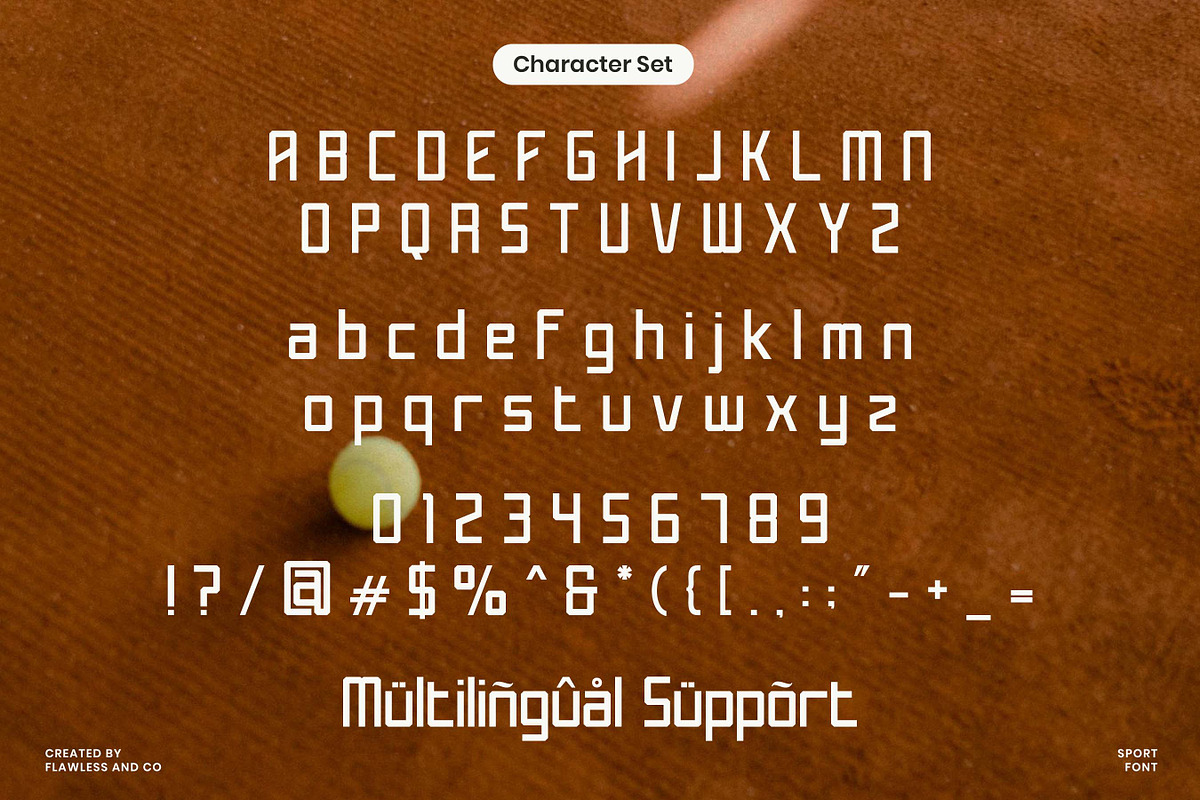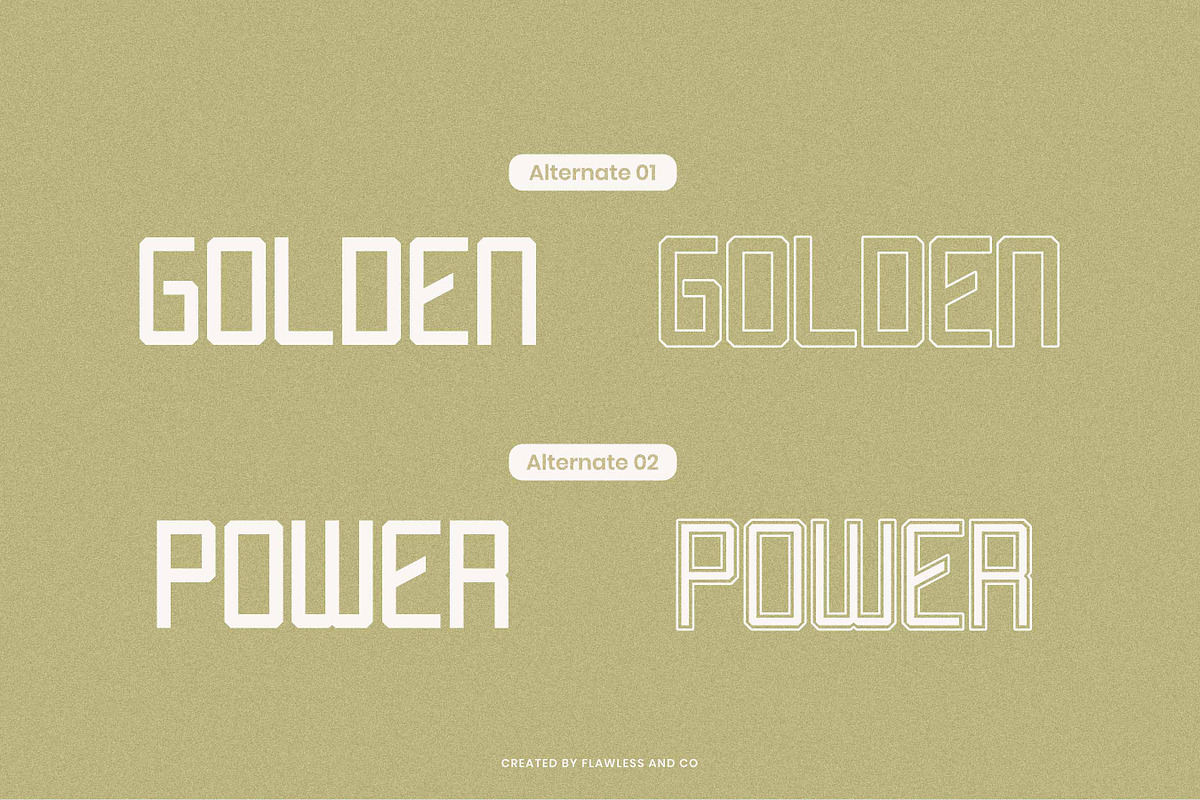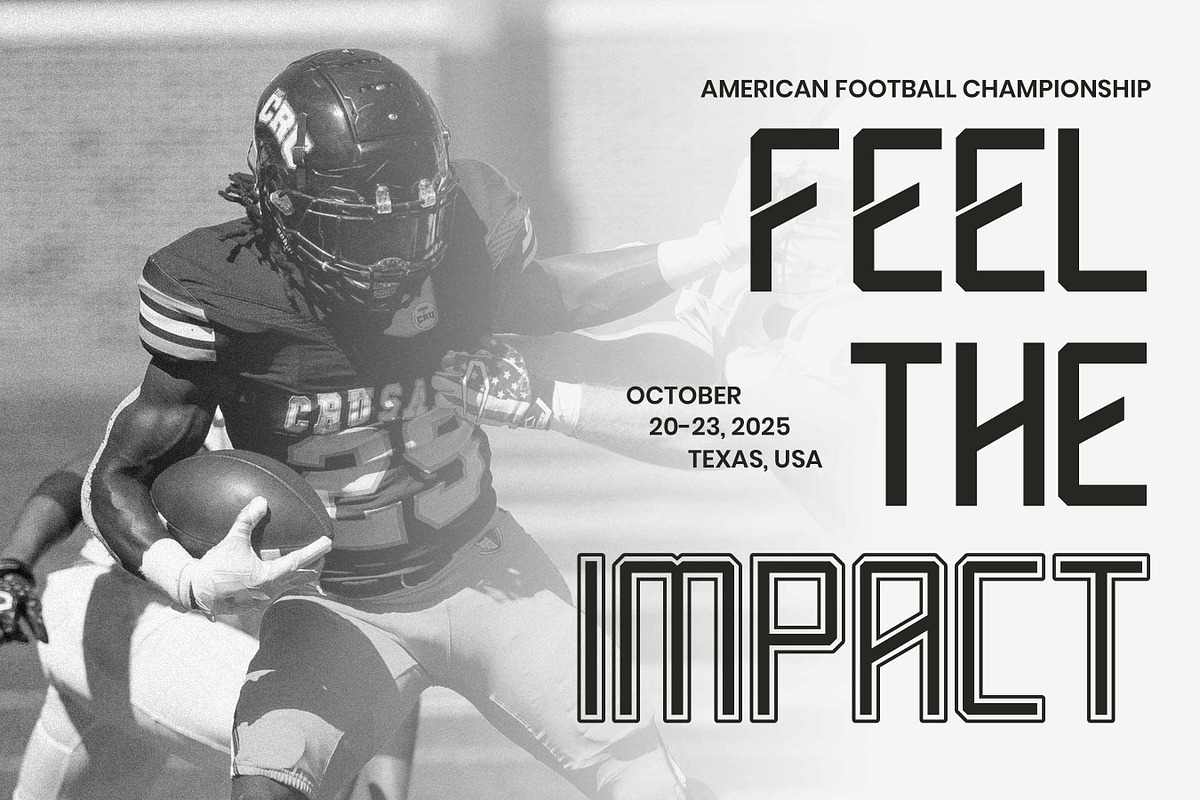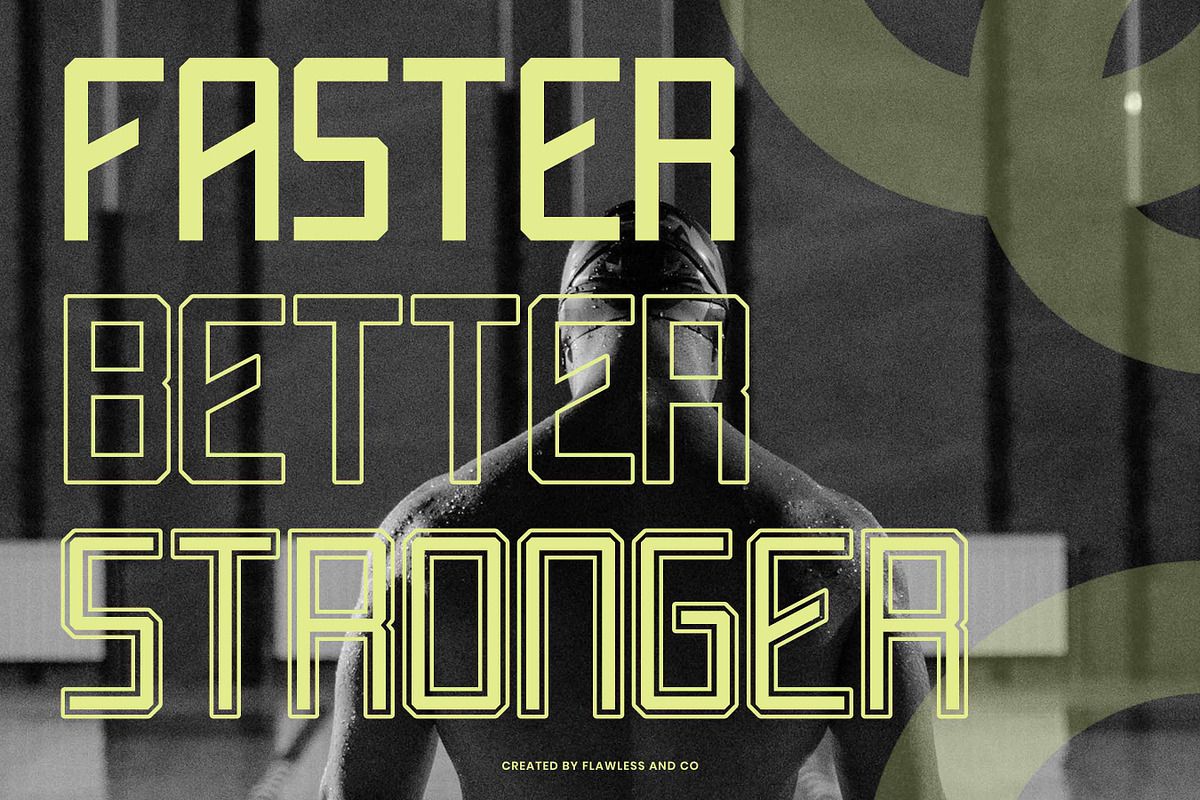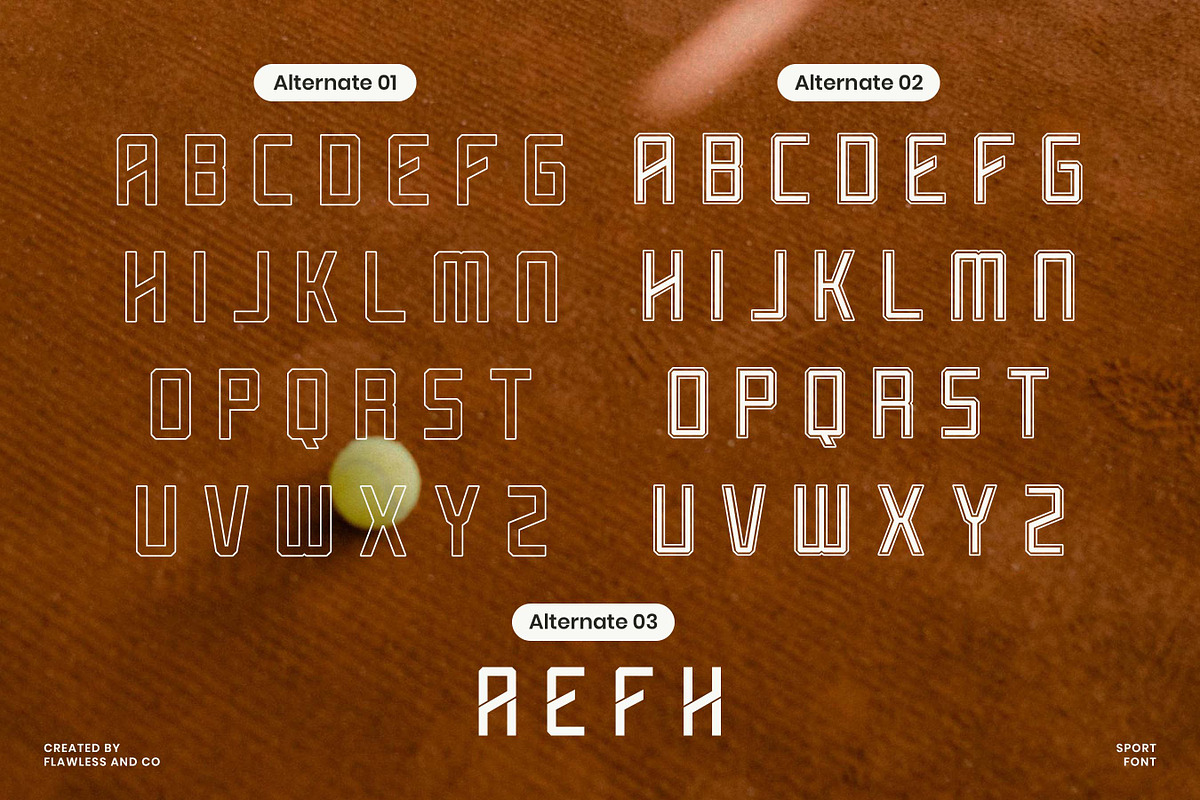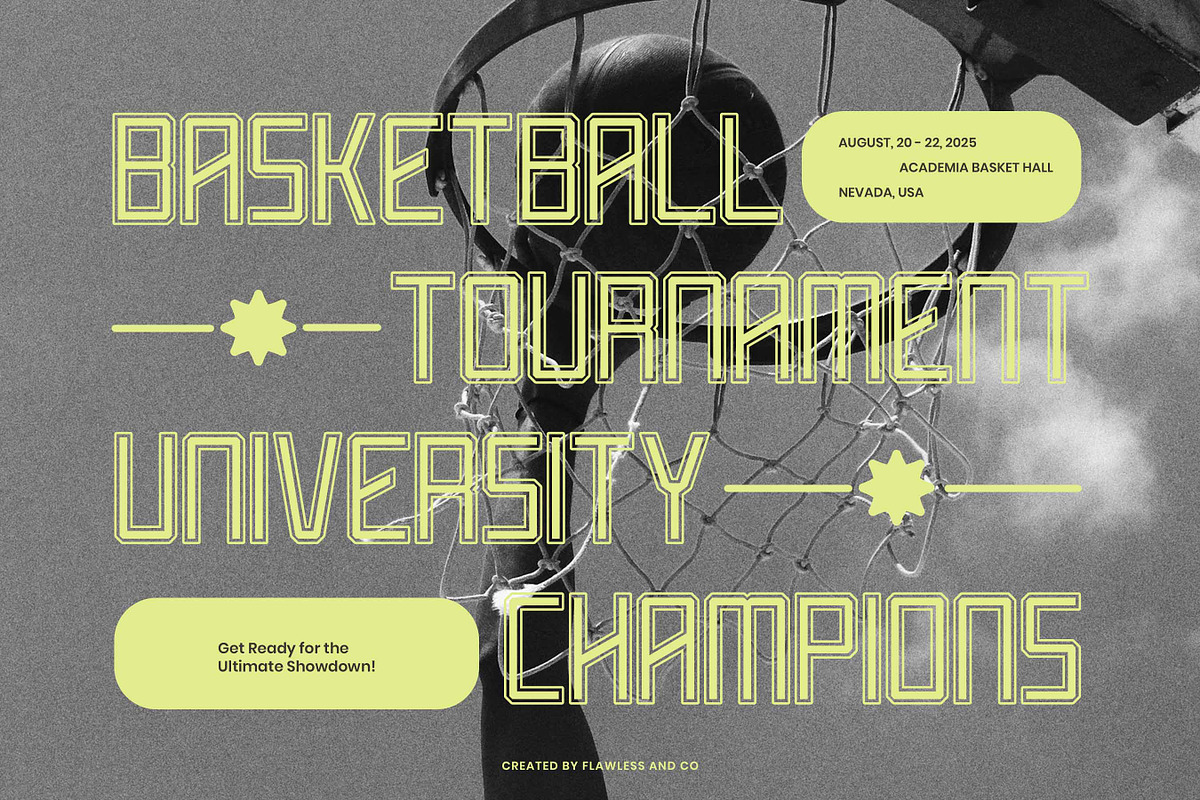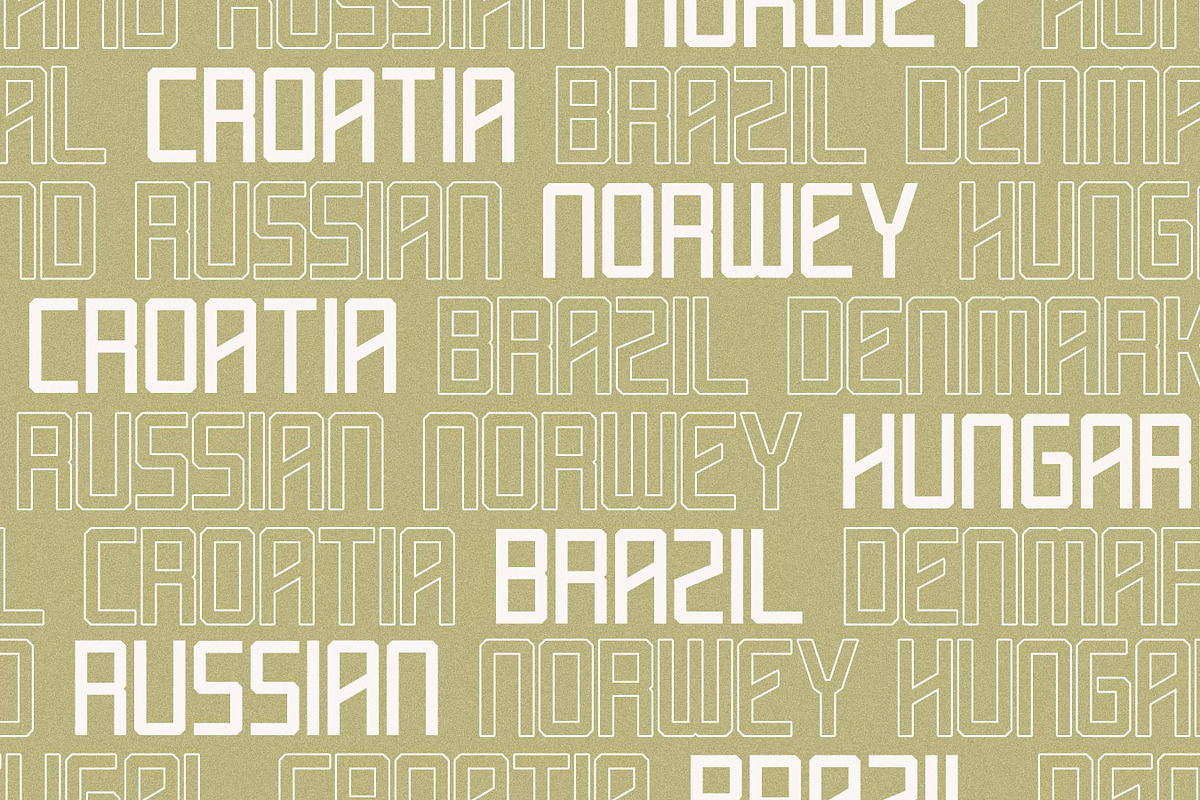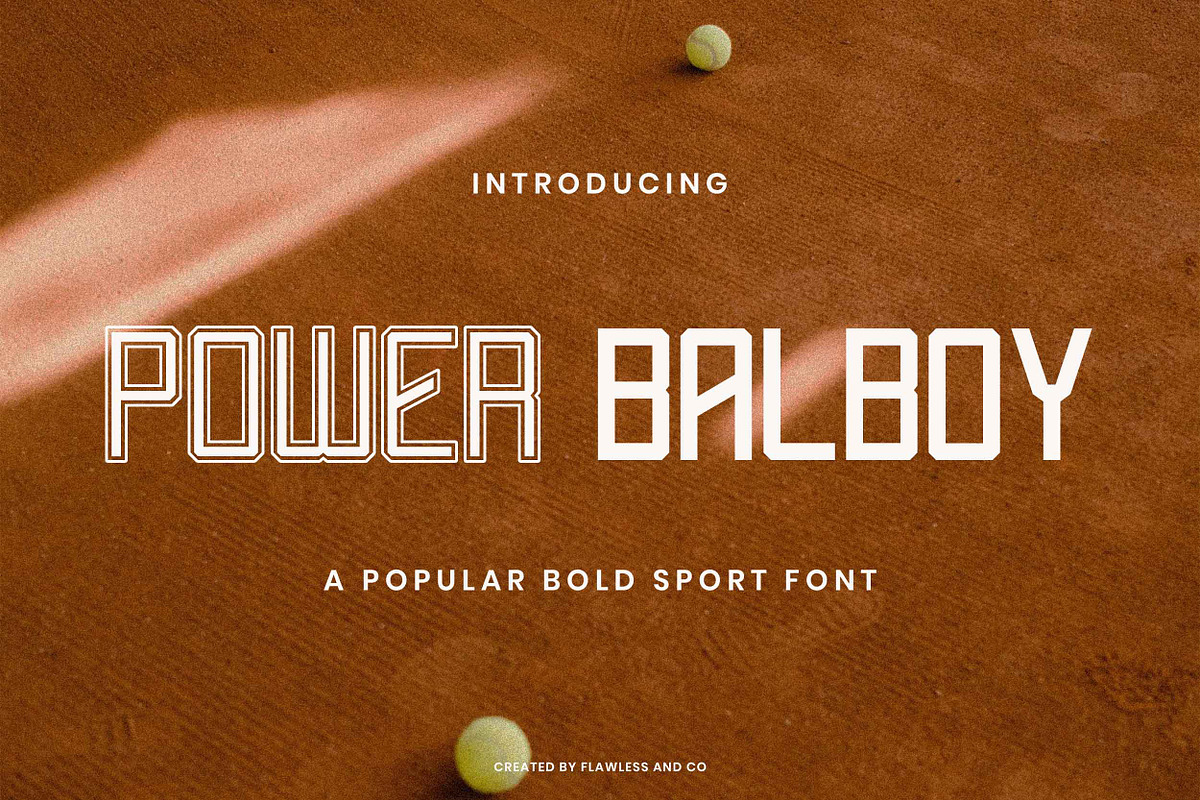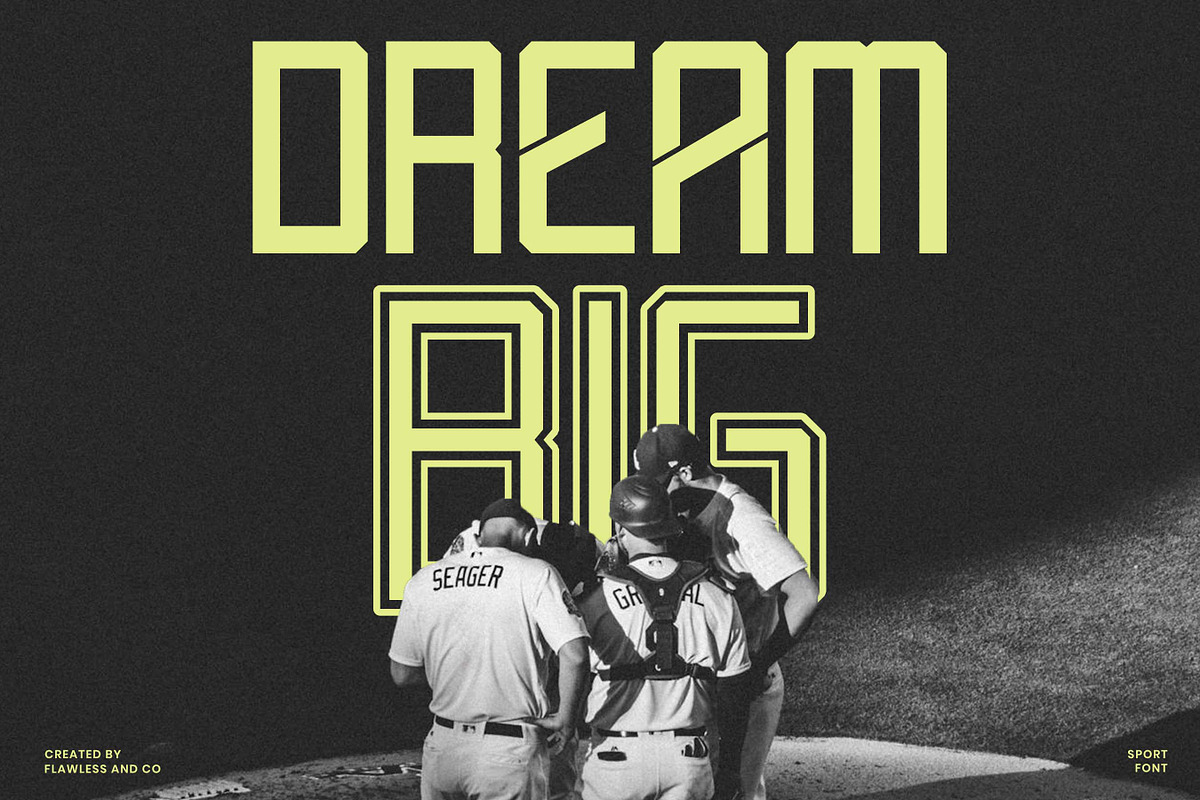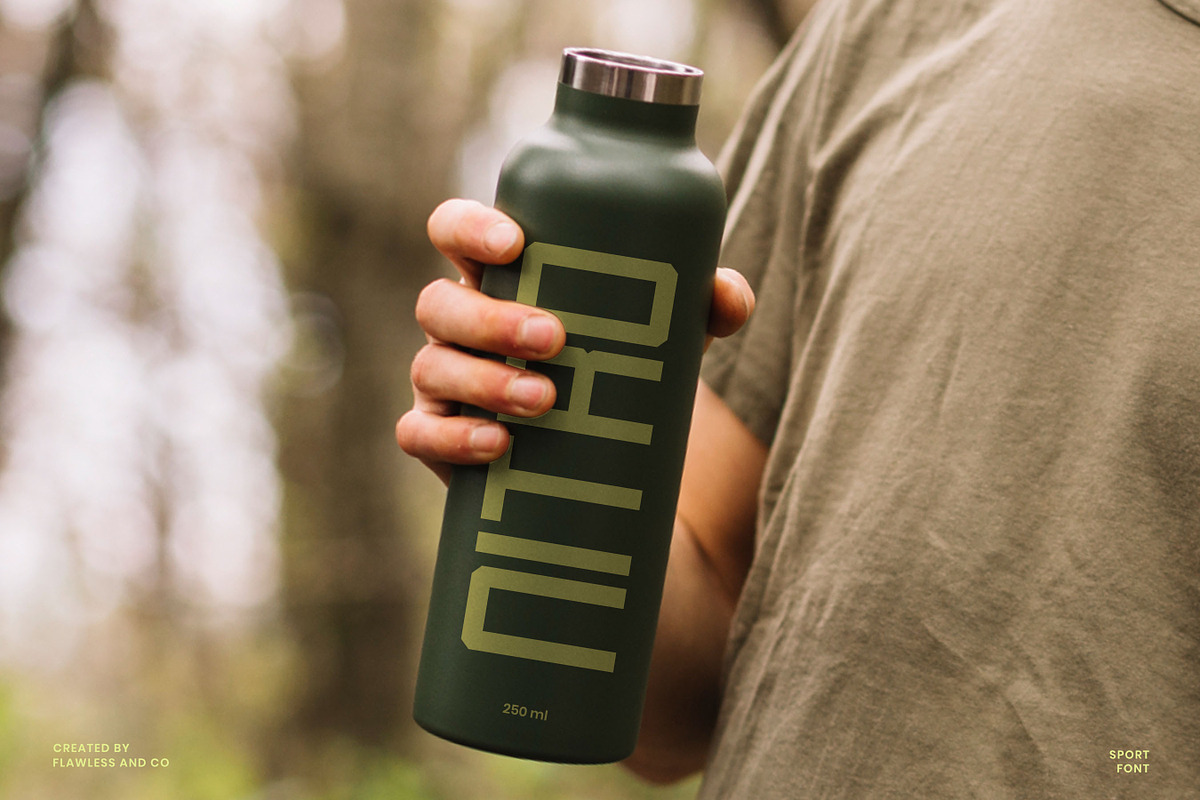
Power Balboy - Sport Sans Serif
Power Balboy – Bold Sport Display Font
Power Balboy is a bold sport typeface built to deliver strength, speed, and impact. With its powerful letterforms and athletic energy, Power Balboy brings a competitive edge to any design—perfect for sports branding, team logos, merchandise, posters, and dynamic headlines. Power Balboy exudes strength, confidence, and power, making it the perfect choice for sports logos, branding, posters, apparel design, and more. Every letter is designed to make a statement—loud, clear, and unstoppable. Inspired by the intensity of sports culture and the adrenaline of the arena, this font is made to stand tall and command attention. Its thick strokes and sharp edges ensure legibility in large-scale layouts while giving your design a bold, confident personality.
Whether you're designing for a professional team, a fitness brand, or a high-energy campaign, Power Balboy will elevate your visuals with force and focus.
- All Caps
- Bold, Impactful Style
Step up your design game with Power Balboy—the ultimate bold font for champions, competitors, and creatives who play to win.
Who Should Use Bold Sport Display Font Power Balboy?
Power Balboy is built for creatives, brands, and teams who want to bring energy, strength, and impact to their designs. This font is perfect for:
- Sports teams & athletic brands looking for bold, competitive typography that stands out
- Fitness and gym businesses aiming to showcase power, motion, and intensity in their identity
- Event and tournament organizers who need high-impact visuals for posters, banners, and merchandise
- Creative agencies working on dynamic branding projects in the sports, fitness, or streetwear space
- Merchandise designers creating strong, standout designs for apparel, gear, and fan collections
- Content creators & influencers who want to make bold, energetic statements on social media and digital platforms
- Gaming and e-sports teams that need aggressive, modern lettering to match their competitive edge
Whether for print or digital, logos or large-scale campaigns, Power Balboy delivers unstoppable energy and bold confidence in every letter. It's the go-to font for champions, competitors, and creatives who play to win.
A Must-Have Font for Brand Creators and Designers
Power Balboy is more than just a font — it's a bold declaration. Designed for brand creators and designers who demand strength, energy, and impact, this sport display typeface powers up logos, merchandise, posters, and more. Whether you're building a sports identity or crafting high-energy visuals, Power Balboy brings unstoppable force and athletic confidence to your creative toolkit.
Why Choose Power Balboy for Brand and Sports Logo Projects?
Power Balboy delivers the boldness, energy, and impact that sports and athletic brands demand. Its strong letterforms, dynamic style, and all-caps design make it perfect for creating logos and branding that stand tall and get noticed. Whether you're designing for a team, a gym, a tournament, or a bold merchandise line, Power Balboy ensures your visuals feel powerful, fast, and full of competitive spirit.